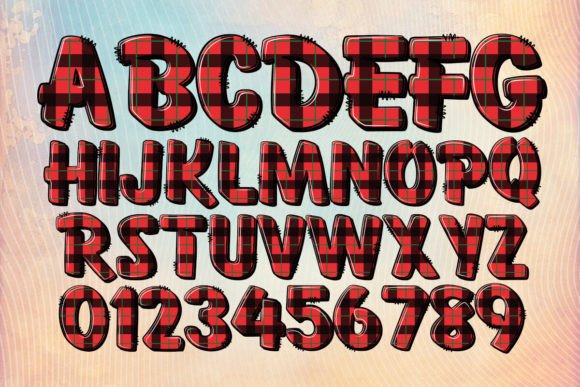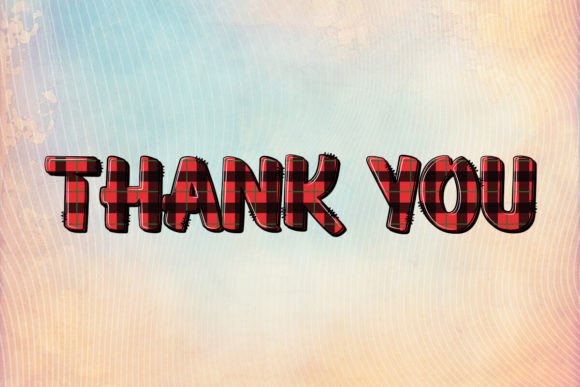
Indulge in the Festive Spirit with Christmas Tartan Font
The holiday season is upon us, and what better way to spread the cheer than with a unique and captivating Christmas font? Introducing Christmas Tartan Font, a charming typeface inspired by classic holiday textiles. This delightful font is designed to evoke the warmth and coziness of the season, fostering a sense of love and family bonding.
A Seamless Blend of Traditional and Contemporary Design
Christmas Tartan Font masterfully unifies traditional and contemporary design elements, making it the perfect addition to your holiday creations. The font’s tartan pattern is reminiscent of classic Scottish textiles, while its clean lines and modern aesthetic ensure it remains fresh and relevant. Whether you’re creating heart-warming messages, season’s greetings, or stocking stuffer tags, this font is sure to delight.
Unleash Your Creativity with Christmas Tartan Font
Rich in history and infused with love, Christmas Tartan Font is designed to awaken your creative inner elf this holiday season. With its unique and comforting design, this font is perfect for designers and crafters looking to add a touch of festive flair to their projects. Imagine creating personalized holiday cards, gift tags, or social media posts that capture the essence of the season. The possibilities are endless with Christmas Tartan Font.
Tips and Tricks for Using Christmas Tartan Font
To get the most out of Christmas Tartan Font, here are a few tips and tricks to keep in mind:
- Experiment with different font sizes and colors to create visually appealing combinations.
- Use the font to create personalized holiday gifts, such as customized mugs, cards, or gift tags.
- Pair Christmas Tartan Font with other festive fonts or graphics to create a unique holiday style.
- Don’t be afraid to get creative and try new things – after all, that’s what the holiday season is all about!
Christmas Tartan Font is the perfect addition to your holiday design toolkit. With its captivating design, seamless blend of traditional and contemporary elements, and compatibility with a range of design programs and cutting machines, this font is sure to spread festive cheer. So why wait? Indulge in the festive spirit with Christmas Tartan Font, and make this holiday season one to remember.